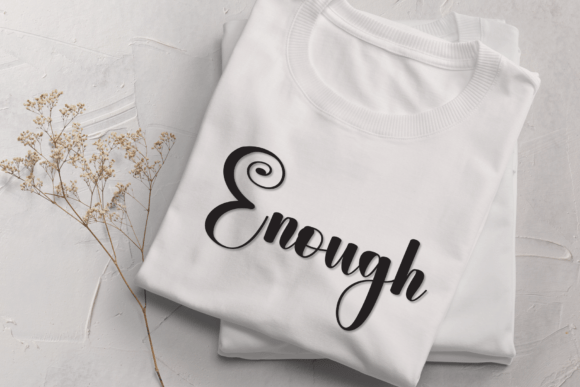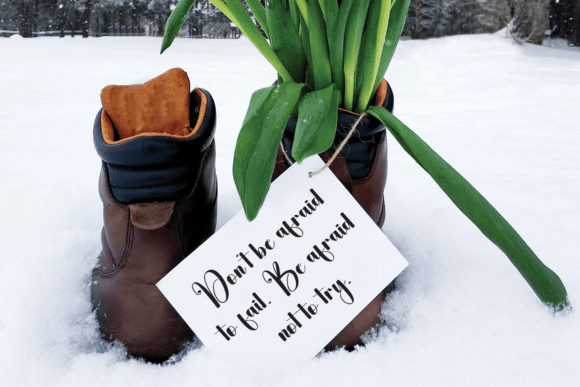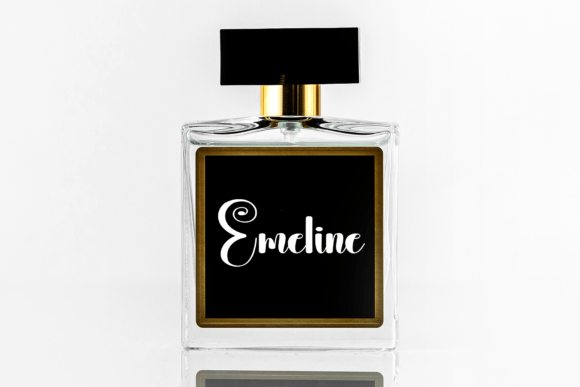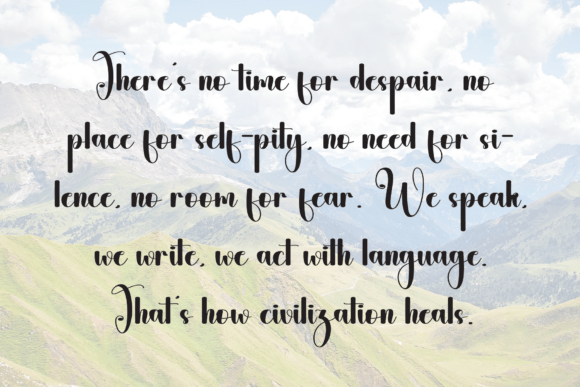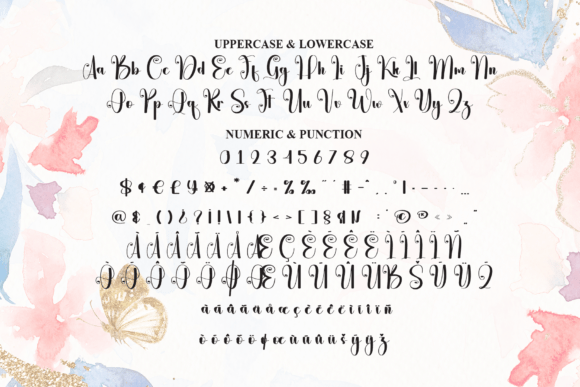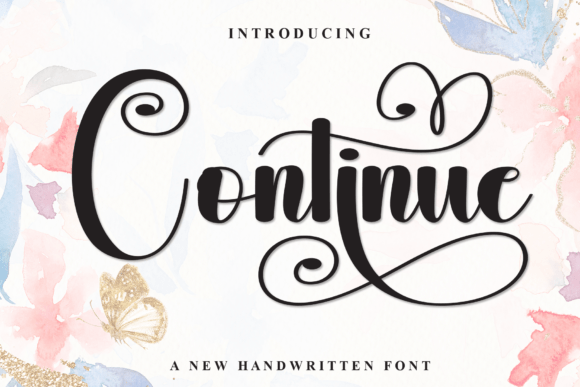
Introducing Continue Font: Elevate Your Designs with Elegance and Sophistication
In the world of typography, few fonts manage to strike a balance between elegance and modernity. Continue Font is one such stylish script font that exudes contemporary charm, making it an ideal choice for designers and crafters looking to add a refined touch to their projects. With its graceful strokes, fluid curves, and meticulously crafted letterforms, Continue Font captures the essence of hand-drawn calligraphy with a modern twist.
The Beauty of Hand-Drawn Calligraphy with a Modern Twist
Continue Font is inspired by the beauty of hand-drawn calligraphy, but with a modern edge that sets it apart from traditional script fonts. Its carefully crafted letterforms feature subtle variations in line width, creating a sense of fluidity and movement. This unique blend of classic and modern elements makes Continue Font versatile and suitable for a wide range of design applications.
Ideal for a Variety of Design Projects
Whether you’re designing a logo, invitation, packaging, or social media graphics, Continue Font is the perfect choice. Its elegant and sophisticated appearance makes it ideal for:
- Logos: Create a lasting impression with a custom logo that exudes elegance and refinement.
- Invitations: Make your special events unforgettable with beautifully designed invitations that showcase Continue Font’s stylish charm.
- Packaging: Elevate your product packaging with a sophisticated font that adds a touch of luxury.
- Social Media Graphics: Stand out on social media with eye-catching graphics that feature Continue Font’s modern and elegant style.
Key Features of Continue Font
So, what makes Continue Font so special? Here are some of its key features:
- Graceful Strokes: Continue Font features smooth, flowing strokes that create a sense of elegance and refinement.
- Fluid Curves: The font’s fluid curves add a touch of sophistication and modernity to any design.
- Carefully Crafted Letterforms: Each letterform has been meticulously crafted to ensure a high level of legibility and visual appeal.
- Natural Flow: Continue Font has a natural flow that makes it easy to read and visually appealing.
- Polished Details: The font’s polished details add a touch of luxury and sophistication to any design.
Why Choose Continue Font?
With so many fonts available, why choose Continue Font? Here are just a few reasons:
- Versatility: Continue Font is versatile and suitable for a wide range of design applications.
- Visual Appeal: The font’s elegant and sophisticated appearance makes it visually appealing and engaging.
- Ease of Use: Continue Font is easy to use and pairs well with a variety of other fonts.
- Unique Style: The font’s unique blend of classic and modern elements makes it stand out from other script fonts.
Continue Font is a stylish script font that offers a unique blend of elegance and modernity. With its graceful strokes, fluid curves, and carefully crafted letterforms, it’s the perfect choice for designers and crafters looking to add a refined touch to their projects. Whether you’re designing a logo, invitation, packaging, or social media graphics, Continue Font is sure to deliver both versatility and visual appeal.